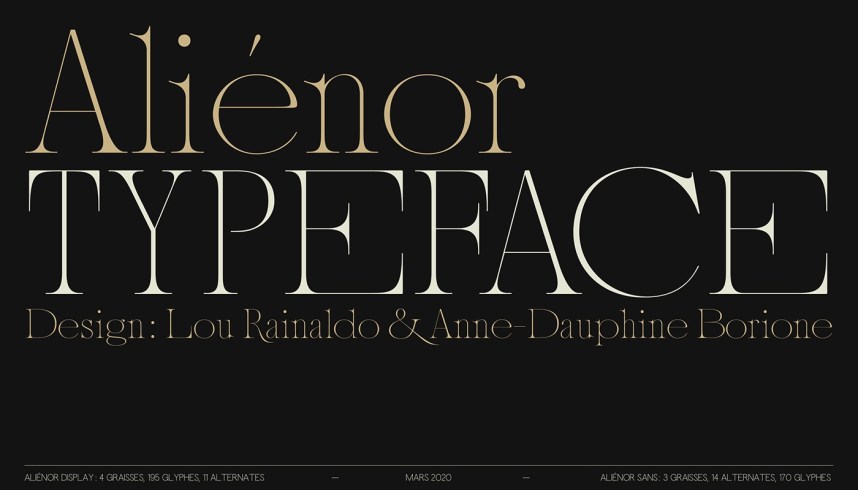
Please note that Alienor Display Font must be purchased for commercial use. You are welcome to download and test this font for personal and non-commercial projects at no cost. This captivating, undulating display typeface is perfectly suited for a wide range of luxury and artistic design applications, including high-end fashion branding, elegant magazine editorial layouts, innovative art project titles, sophisticated packaging for premium goods, and any visual communication that requires a dynamic, melodic rhythm and a sense of pure, lethal elegance.
The reason Alienor Display Font is genuinely exciting is its rhythmic movement and stunning contrast, which is unlike any conventional typeface. It features wide, looping bowls and counters that contrast sharply with narrow apertures, creating a hypnotic visual energy across the page. Furthermore, the design maintains fixed upstrokes, which dramatically accentuates the weight contrasts—from a fragile, spindly look in the light weight to a strong, tactile, inky feel in the heavy style—giving it a transformative quality.
The Alienor Display Font family offers a superb range of weight variations, allowing for deep expressive control, typically including styles that range from Light to Heavy. This range ensures versatility in conveying both delicate and bold messages. The family also provides essential alternative glyphs so that even text composed entirely of capitals maintains its unique elegance and harmony. For a typeface that exudes visual rhythm and high elegance, secure your Alienor Display Font Free Download today.